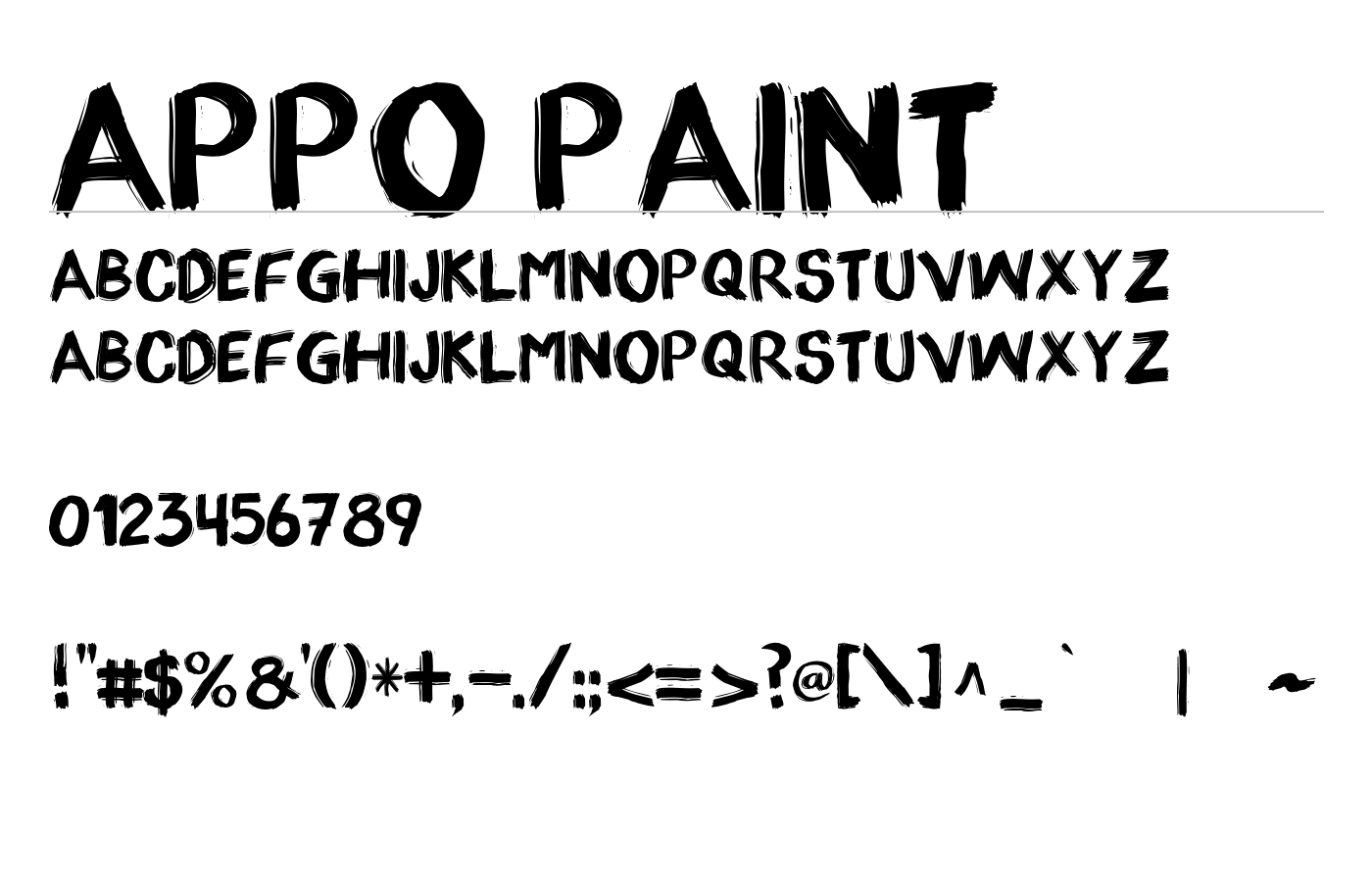
Appo Paint is a bold, hand-painted sans serif font with a rough, brushstroke texture that gives it an energetic and artistic feel. Its uneven edges and casual style make it perfect for creative, playful, and expressive designs, ideal for posters, branding, and eye-catching headlines that want to convey a sense of handmade authenticity and dynamic movement.
appo paint Font
About appo paint Font